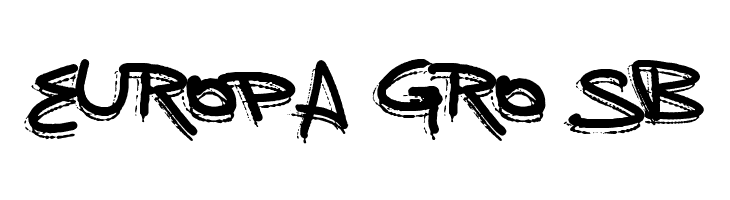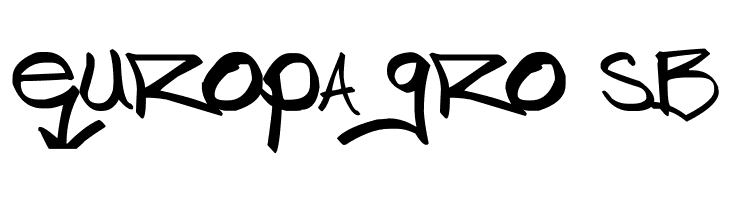
A bold, rugged font with a distressed, urban texture.
A bold, graffiti-inspired font with a rough, hand-drawn appearance.
A rugged, distressed font with a bold, hand-drawn appearance.
A bold, urban font with a 3D graffiti-inspired style.